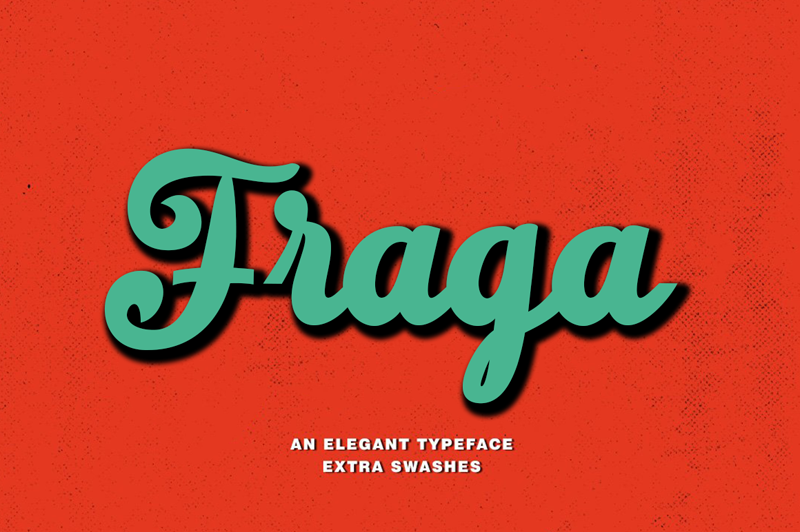
Fraga Script Inspired by Retro style and combination with Hand Lettering style.The Fraga Script have many alternative swash & ligatures character and have opentype features like a stylistic alternatice, stylistic set, ligature and swash so you can mix and match like a you want. The Fraga Script came with open type features such stylistic alternates, stylistic sets & ligatures good for logotype, poster, badge, book cover, tshirt design,handwritten quotes, product packaging, header, poster, merchandise, social media & greeting cards. |